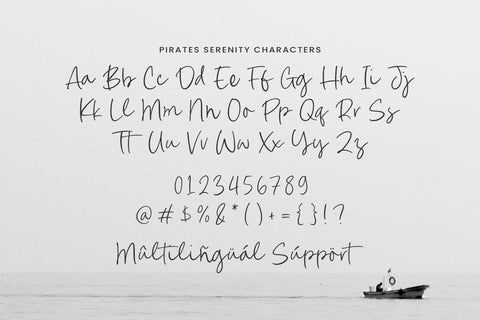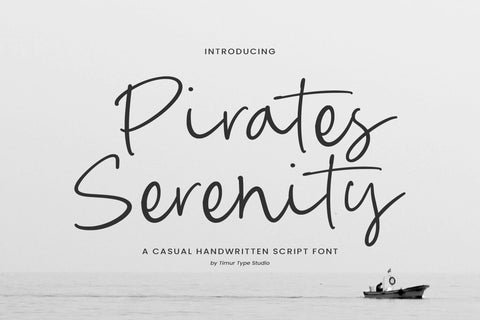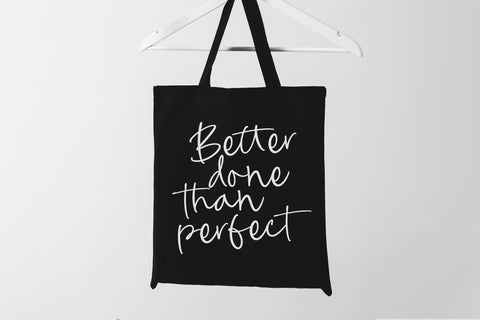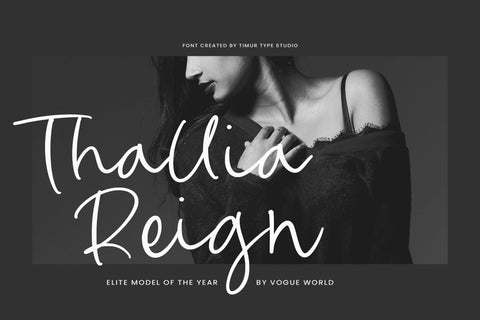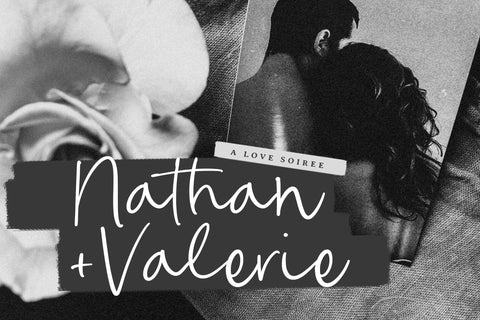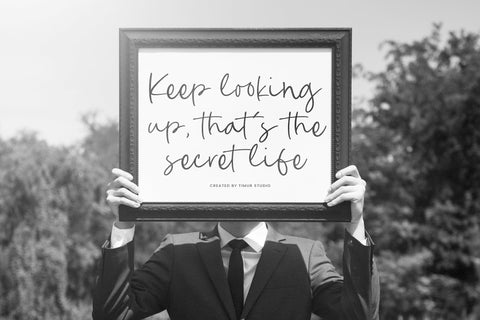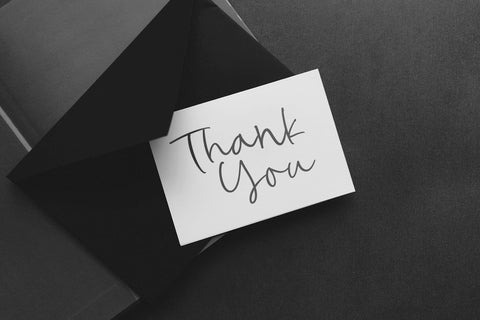
Pirates Serenity - Casual Handwritten Script Font
Pirates Serenity is a Casual Handwritten Script Font
This font is a casual handwritten script font that blends a laid-back, breezy flow with a touch of nautical charm. Its smooth, slightly messy strokes evoke the feel of quick yet stylish penmanship, making it perfect for logos, invitations, quotes, and branding that needs a relaxed vibe.
Pirates Serenity Font also supports multilingualism